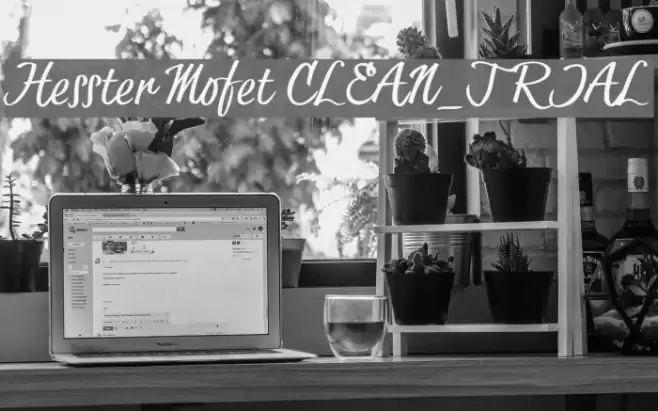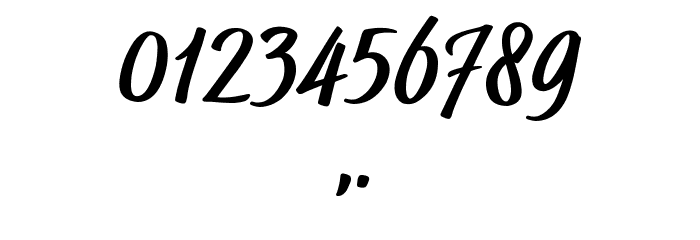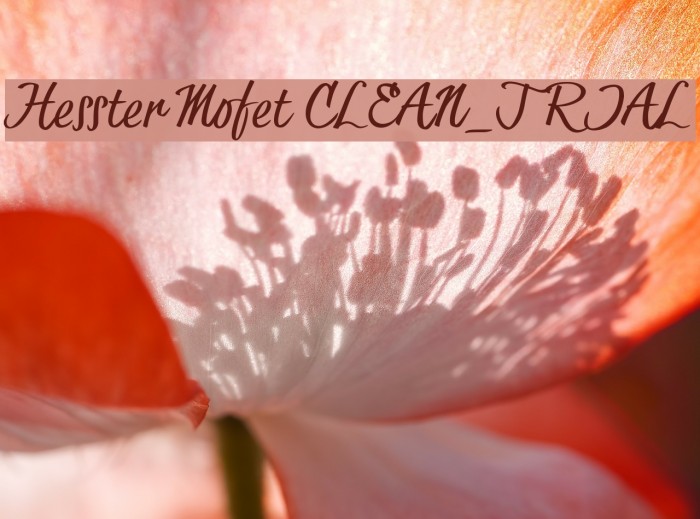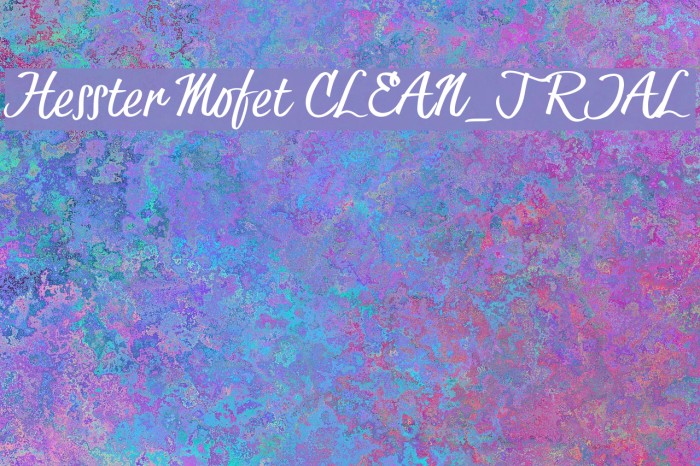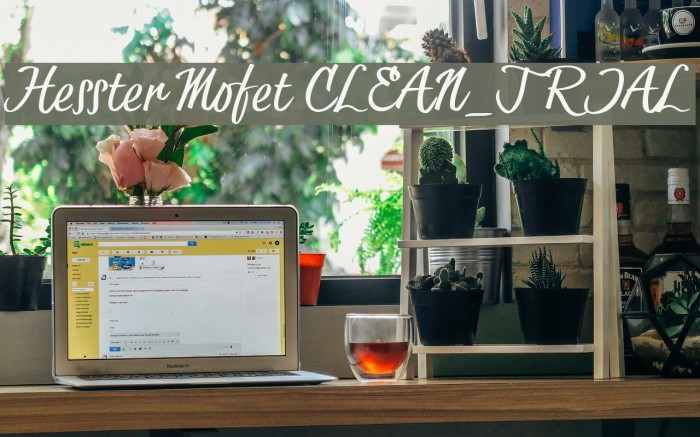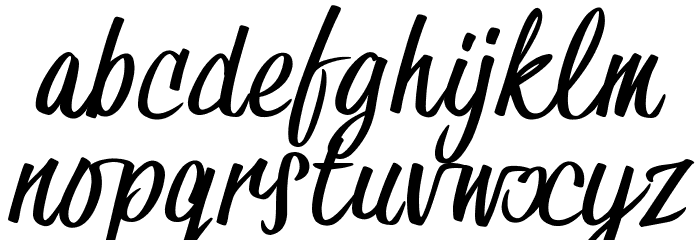
Hesster Mofet CLEAN_TRIAL Font
Hesster Mofet CLEAN_TRIAL Description
This font features a dynamic and flowing script style, characterized by its elegant and cursive letterforms. The uppercase letters exhibit a graceful, sweeping motion, while the lowercase letters maintain a consistent fluidity, enhancing the overall aesthetic. The numerals are designed to complement the script style, maintaining the same level of elegance and readability. The font's special characters, including punctuation marks, are crafted to seamlessly integrate with the script, ensuring a cohesive look across all text. This font is ideal for projects that require a touch of sophistication and style.
A dynamic and elegant script font with flowing letterforms from Uncategorized fonts.
- Proposed Projects: Ideal for wedding invitations, greeting cards, branding, and elegant packaging.
- Overall Style: Elegant
- Use Case: Logos, Invitations, Decorative text